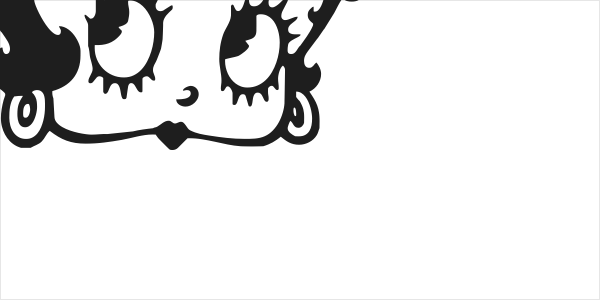
Grim Natwick Betty Boop Font
Grim Natwick Betty Boop Description
| Overall Style | Vintage, playful, cartoonish |
| Use Case | Logos, character branding, merchandise, animation |
| Proposed Projects | Character branding, vintage animation projects, comic strips, merchandise design, nostalgic marketing materials. |